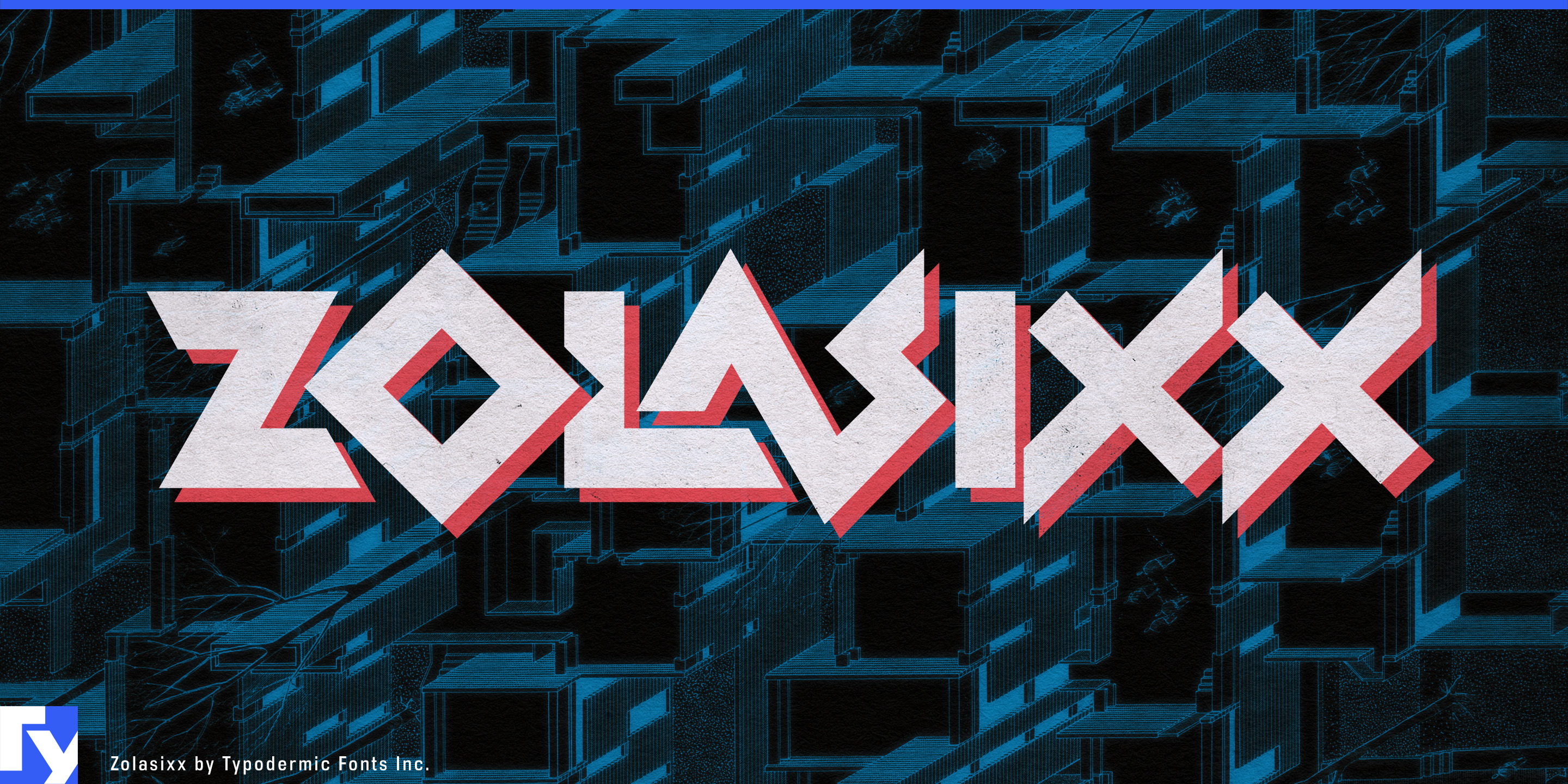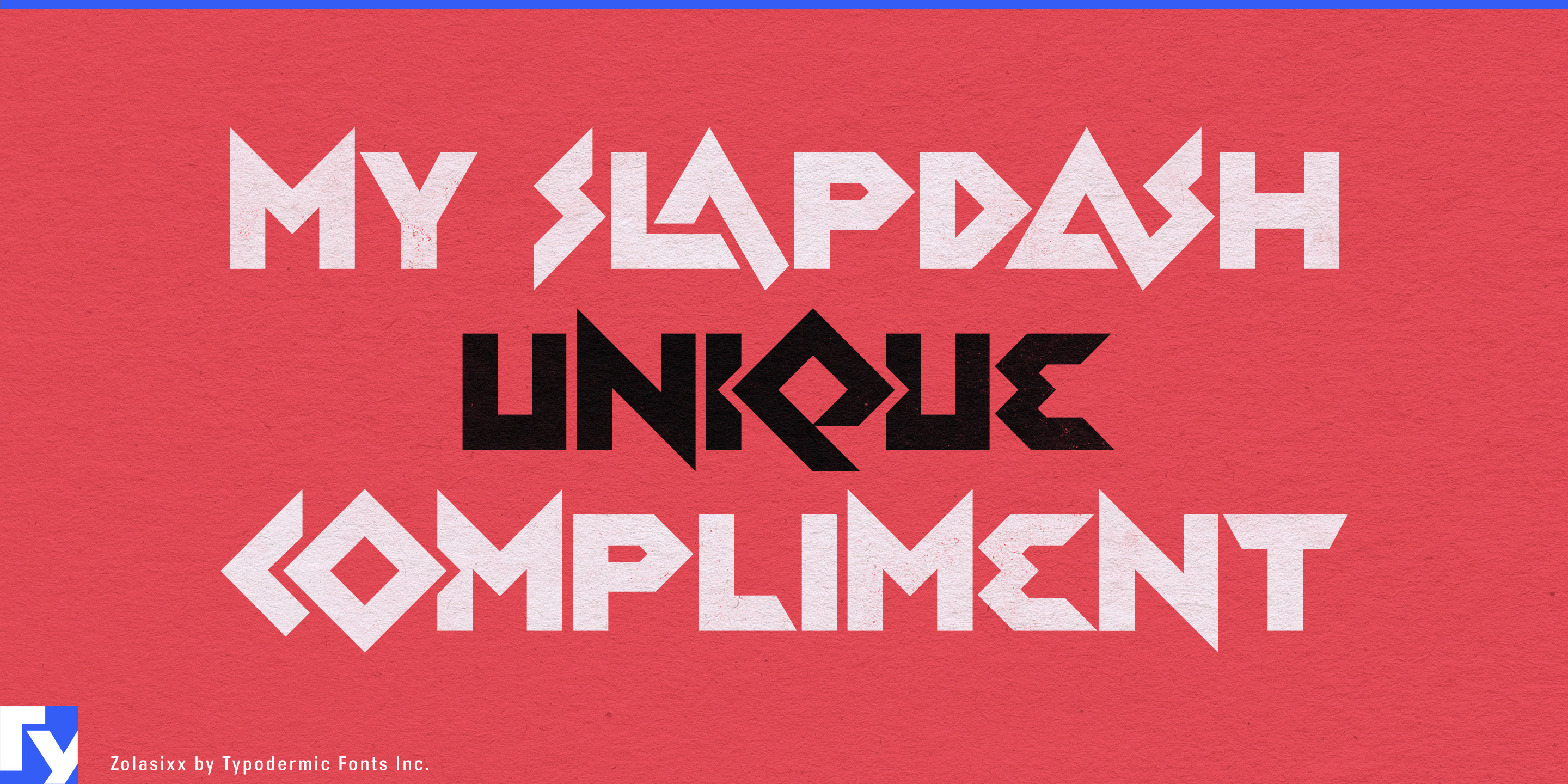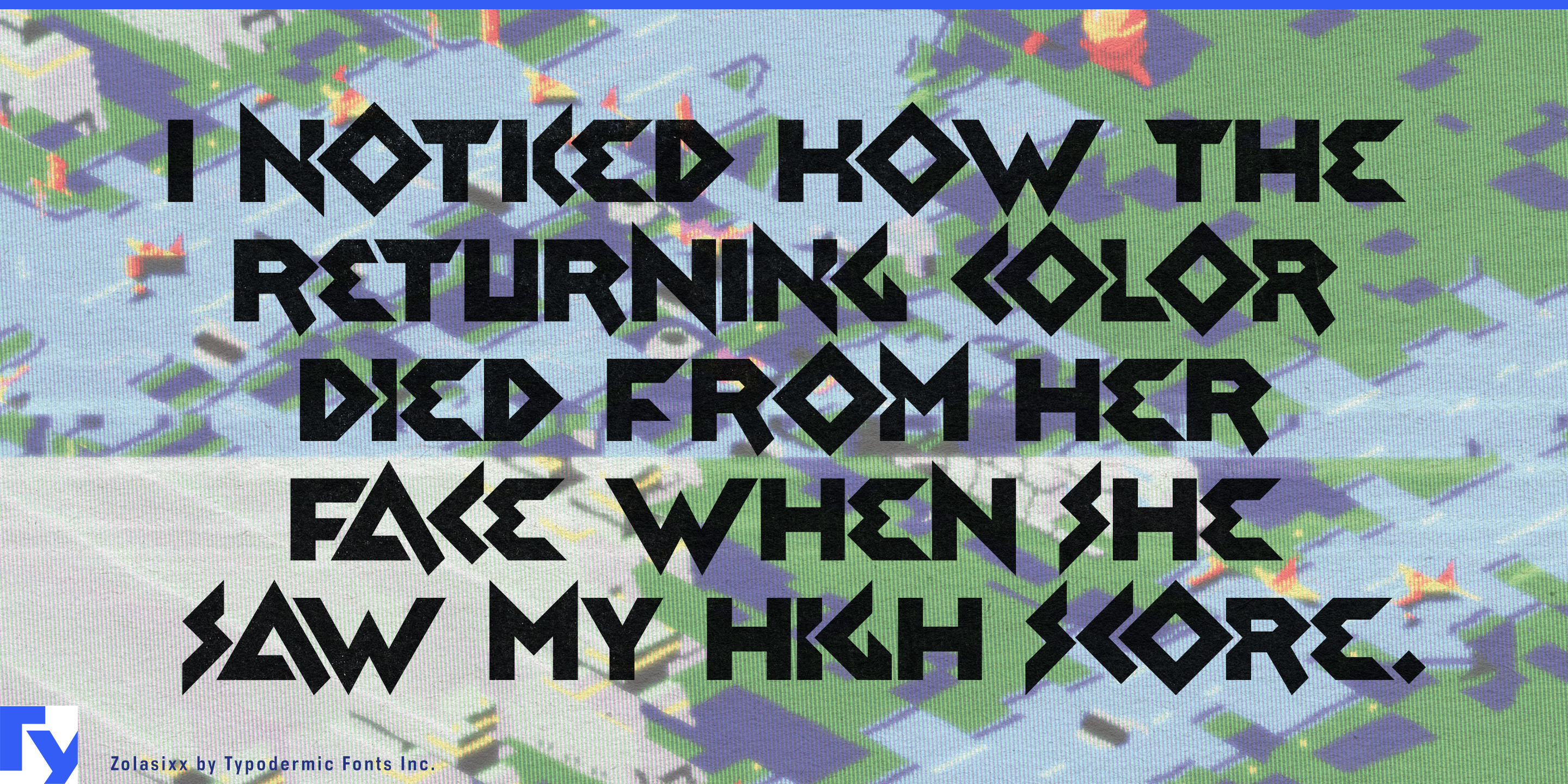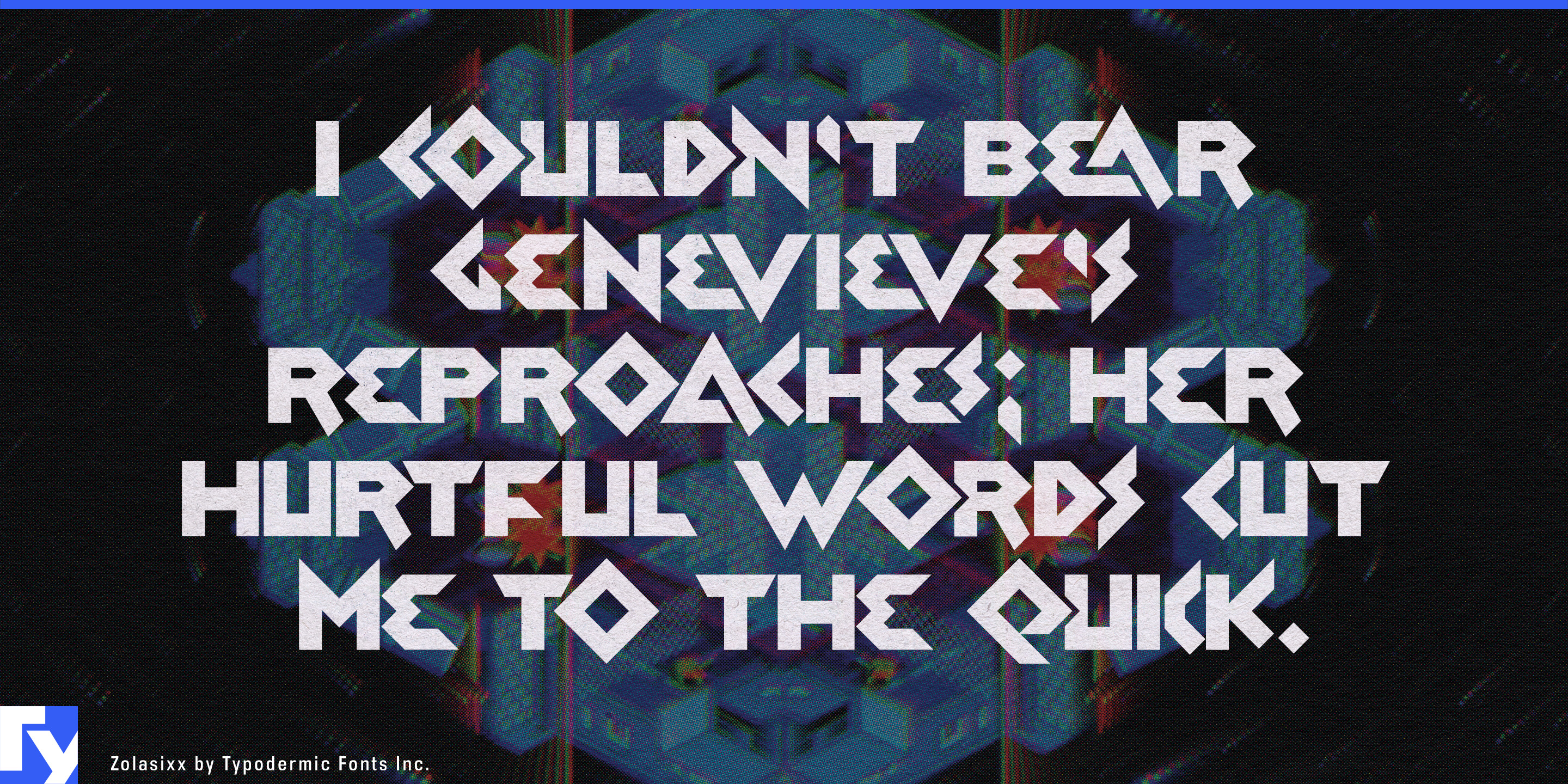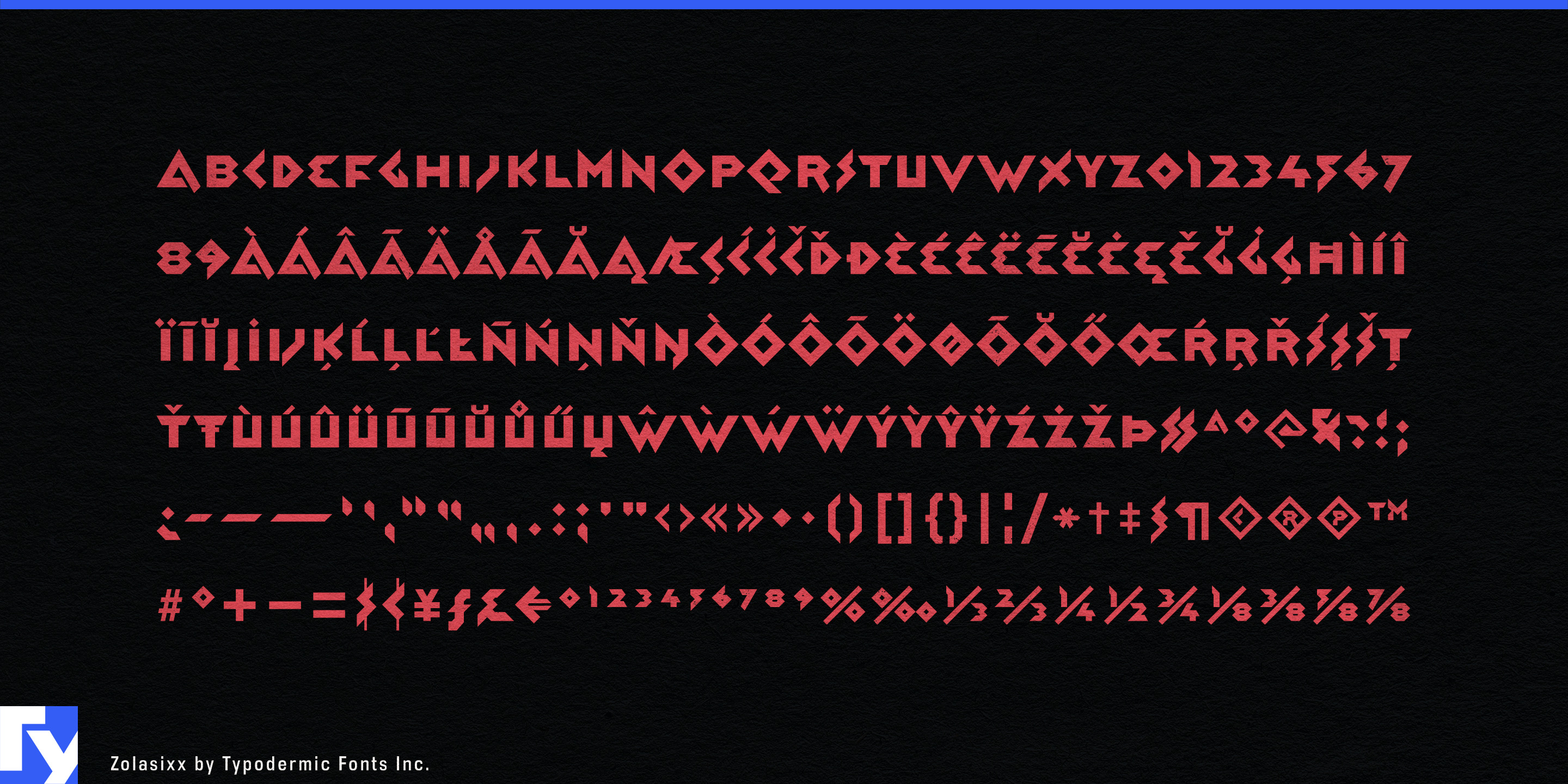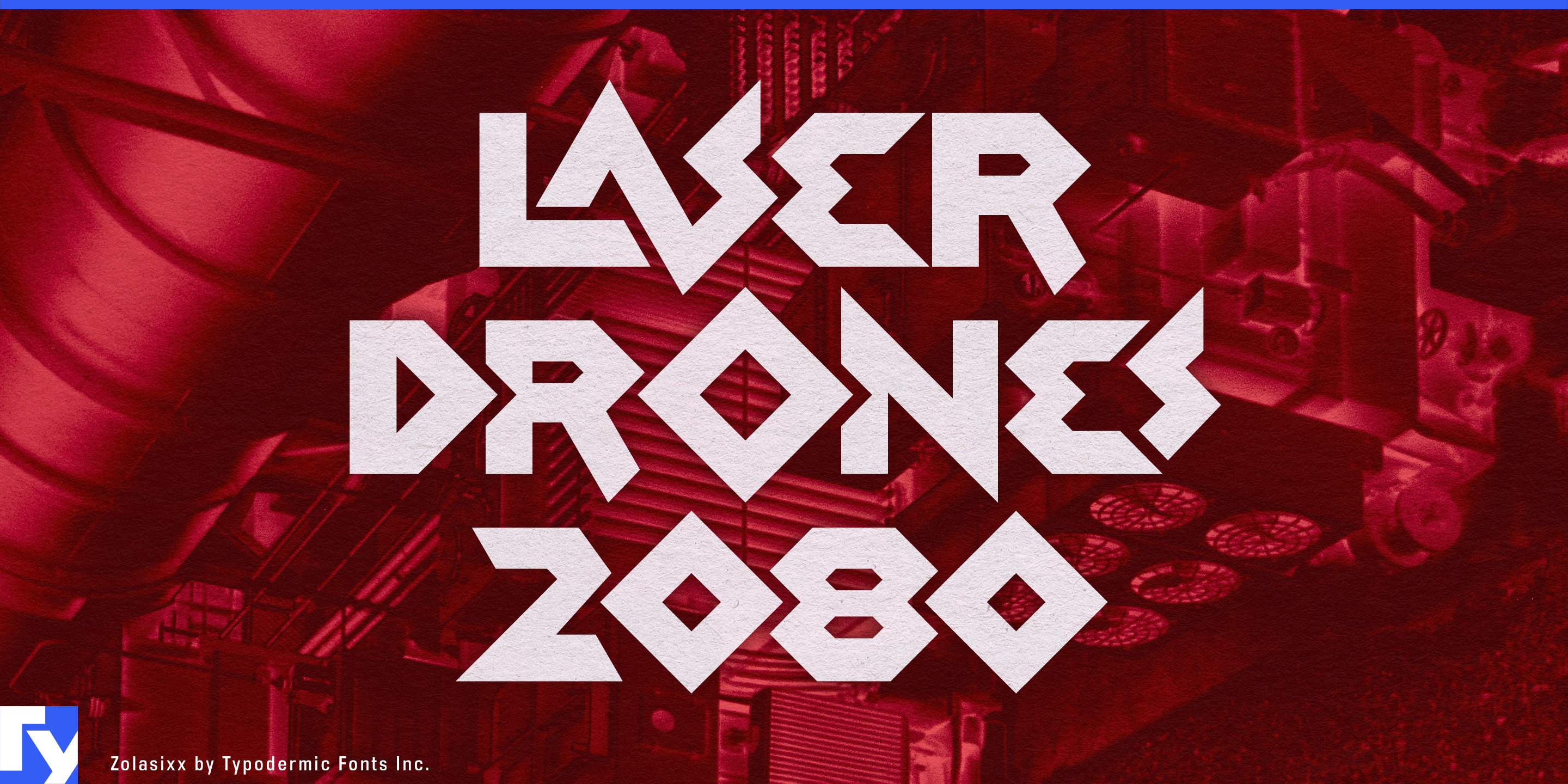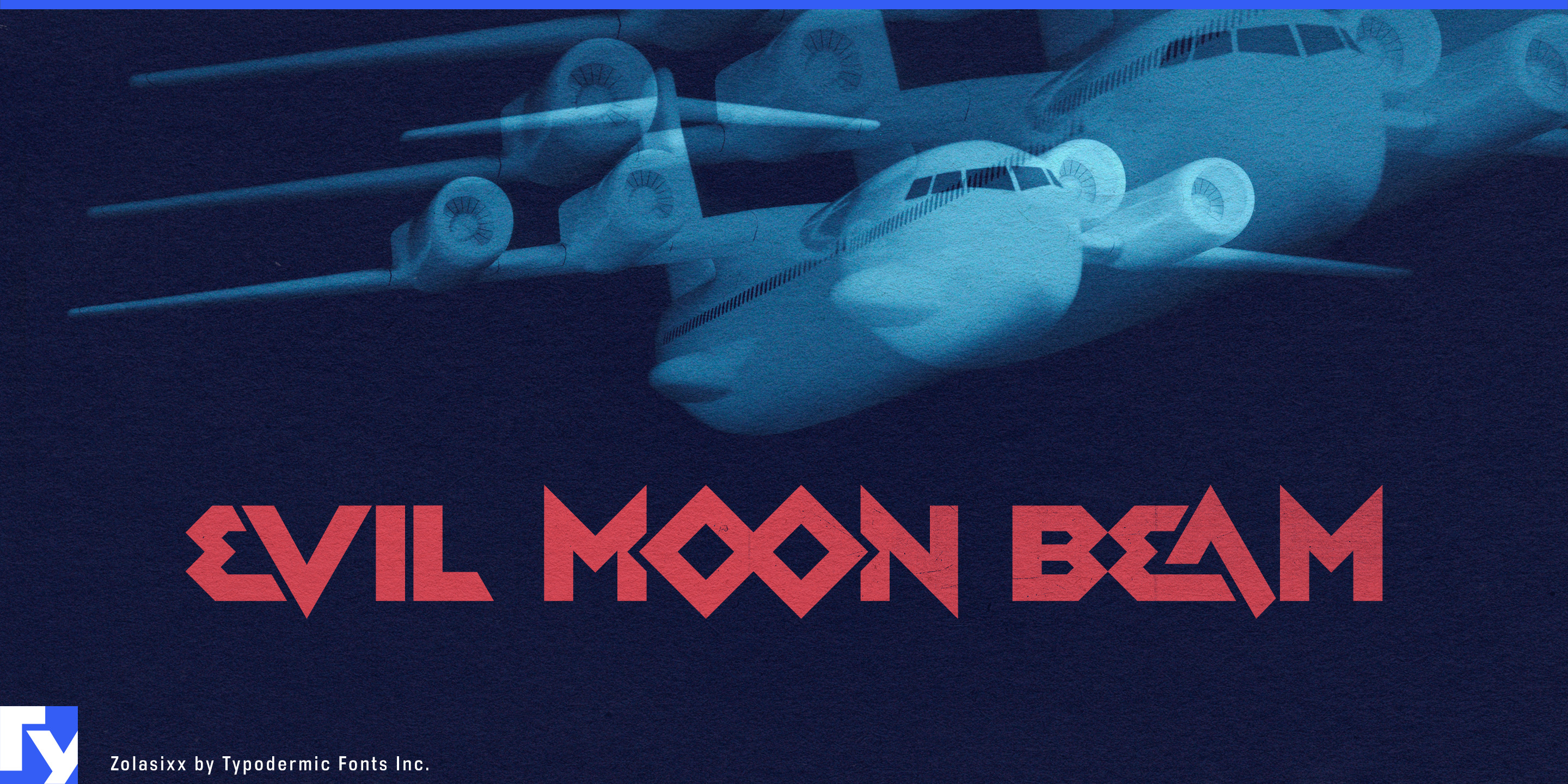
Zolasixx
Zolasixx began with the angular logic of early isometric arcade graphics, but its letterforms have taken on a wider life. Diagonals, sharp turns and interlocking shapes make words look as if they are routing themselves through space, assembling into structures or solving small geometric problems.
That makes it especially effective for climbing and bouldering. Route names, competition titles, climbing-gym graphics, hold-set names and event shirts can use the same directional tension found in a body moving between holds across an angled wall. Puzzle games, escape rooms and mechanical puzzle packaging offer another natural fit; Zolasixx’s ligatures and connected forms make short titles feel constructed rather than simply typeset.
Its isometric ancestry also pairs naturally with axonometric buildings, factory diagrams, cutaway interiors, illustrated maps and game environments. Architecture exhibitions, fabrication labs, pavilion projects and modular structures can use the font’s folded, joined geometry without relying on retro styling. Released in 2012, Zolasixx can also read today as part of the experimental geometric design language associated with that period, giving it another route into architectural and fabrication-oriented work.
Zolasixx is an all-caps display face for short, concentrated language: climbing routes, puzzle titles, exhibition headings, structure names and labels within spatial illustrations. Pair it with a quieter sans for instructions, descriptions and specifications; let Zolasixx turn the important few words into a piece of constructed space.
- Geometric, Angular
- Ligatures